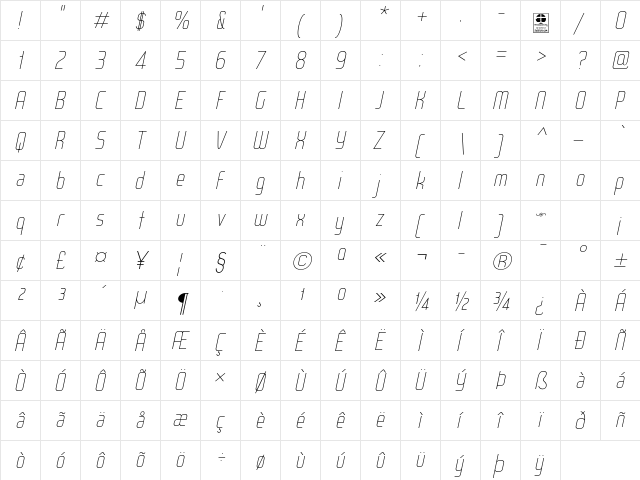
WOX~Modelist Thin Italic Demo Regular Font Preview
Design Context for WOX~Modelist Thin Italic Demo Typeface
WOX~Modelist Thin Italic Demo is a composed and adaptable typeface that performs quietly and consistently across a wide range of design contexts. Its italic angle brings a sense of urgency and motion to the letterforms. Its slender proportions lend an understated elegance to any composition.
Pro Tip: Try WOX~Modelist Thin Italic Demo for annotation and caption copy alongside an upright companion — the contrast in angle creates a dynamic but ordered typographic system.